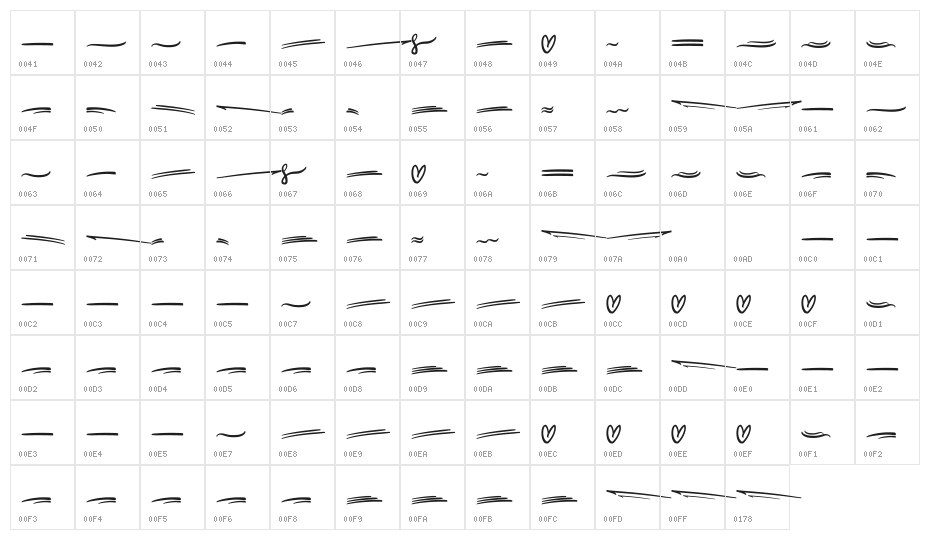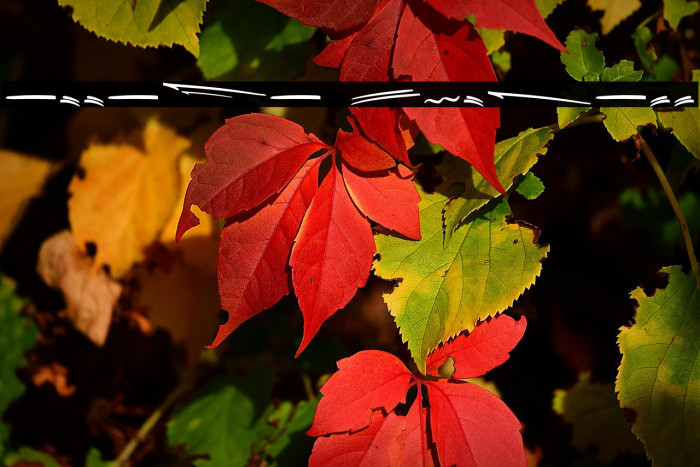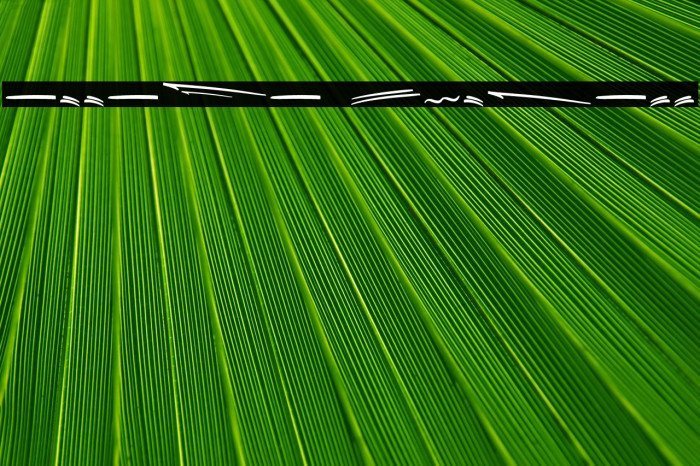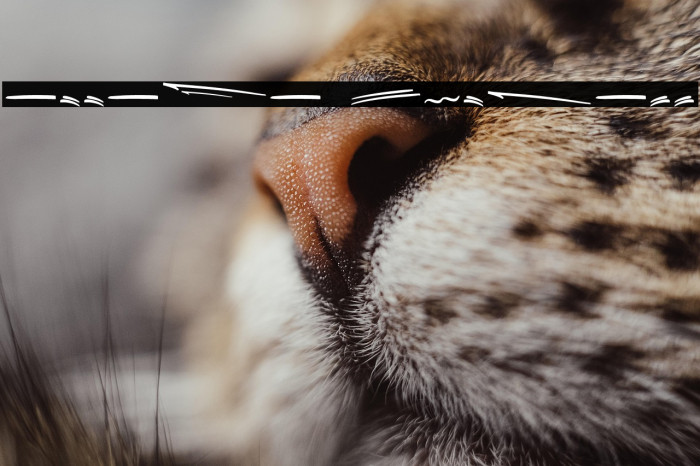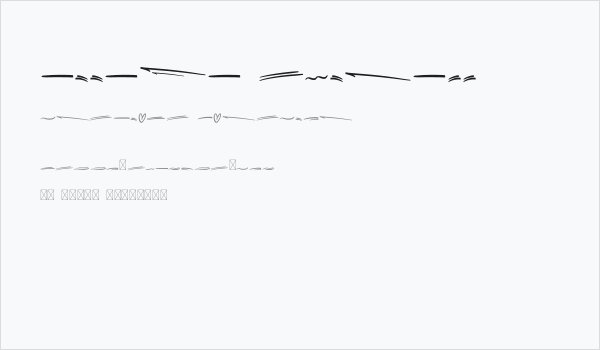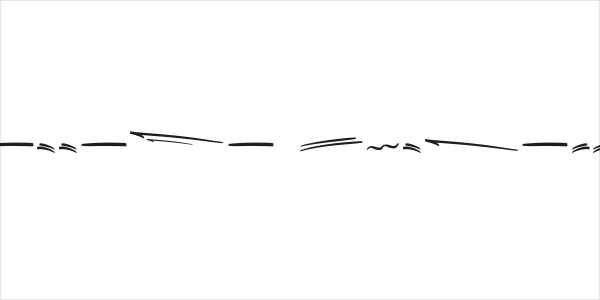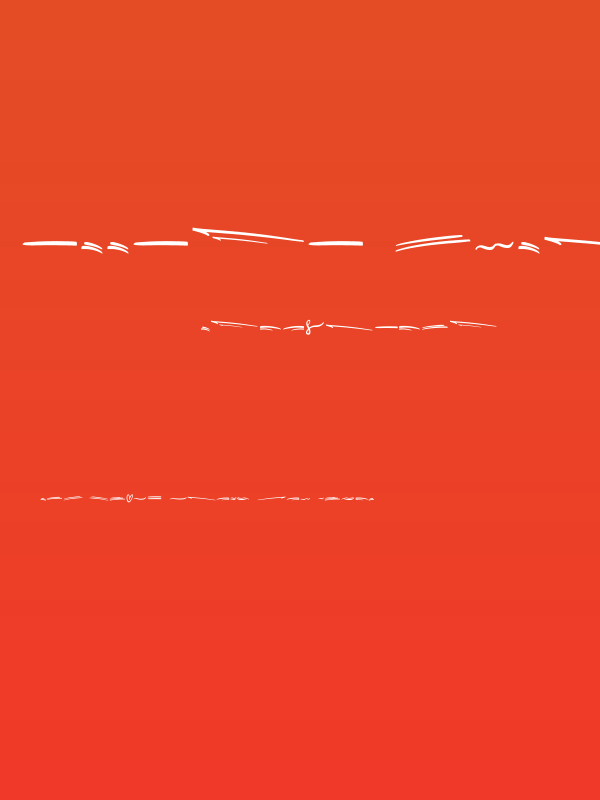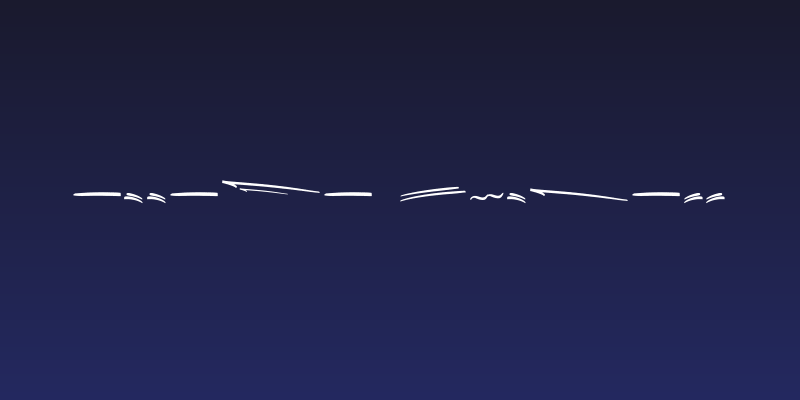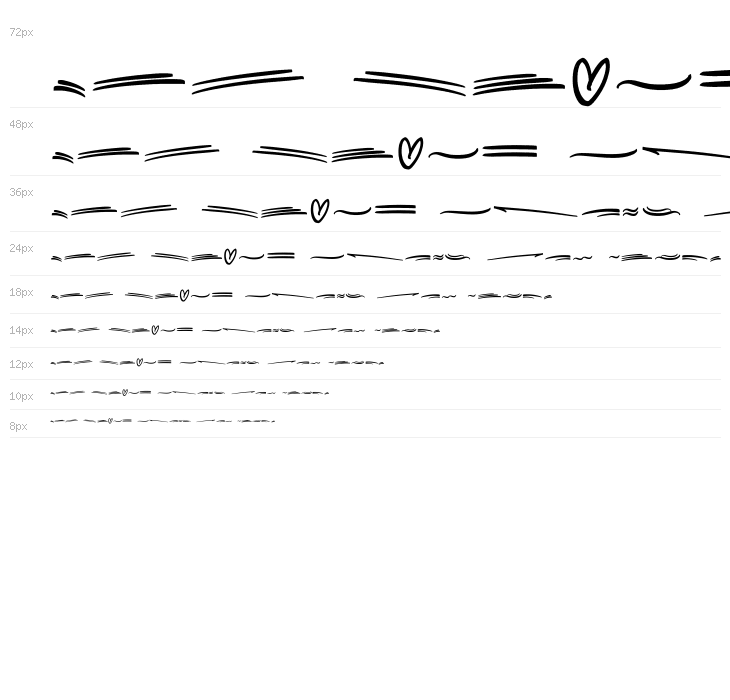
Attaya Extrass Font
Attaya Extrass Description
This design features a series of decorative lines and symbols, including arrows, hearts, and squiggles. The elements are hand-drawn, giving them a whimsical and playful feel. The lines vary in thickness, adding a dynamic quality to the design. The symbols are integrated seamlessly into the lines, creating a cohesive look. The overall style is casual and artistic, suitable for adding a personal touch to creative projects. The design is not a traditional font but rather a collection of decorative elements.
| Use Case | Decorative elements for creative projects. |
| Proposed Projects | Ideal for scrapbooking, greeting cards, invitations, and other creative projects that require a personal, artistic touch. |